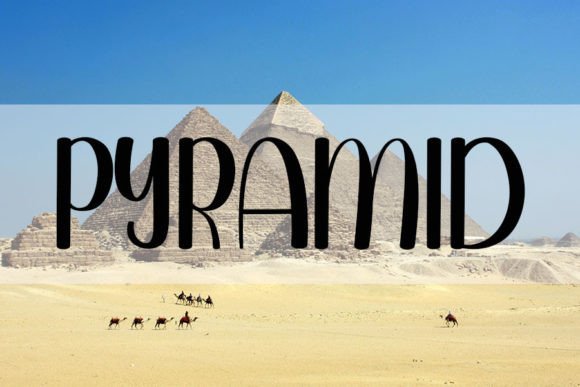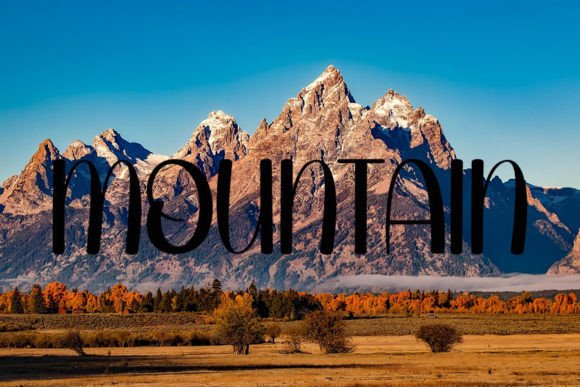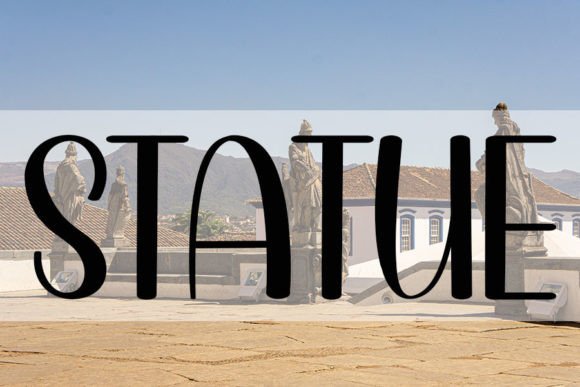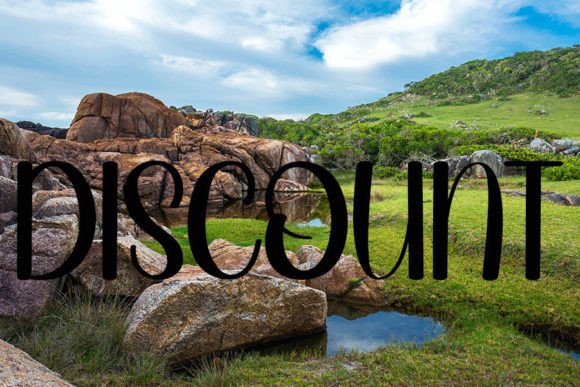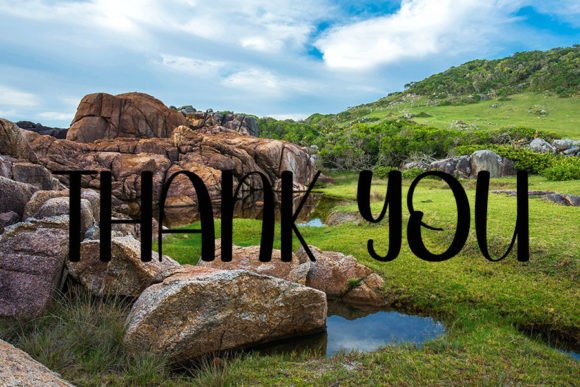
Discover the Timeless Elegance of Astone Font
Have you ever sat in front of your computer, staring at a blank canvas, waiting for inspiration to strike? For many designers, this is the moment when creativity takes over, and the possibilities seem endless. It’s in these moments that we need the perfect tool to bring our vision to life. That’s where Astone Font comes in – a beautiful, handwritten font that adds an elegant touch to any project.
Astone Font is more than just a font; it’s a statement piece that can elevate your designs to new heights. With its incredibly distinct and timeless style, it’s the perfect addition to any designer’s toolkit. Whether you’re working on a branding project, a website, or a social media campaign, Astone Font is sure to impress. Its versatility and sophistication make it a valuable asset for designers who want to create truly spectacular designs.
Astone Font Key Features
- Unique Characteristics: Astone Font features a distinctive, modern design with a blend of geometric and organic elements, making it suitable for a variety of design applications.
- Font Weight and Style: Astone Font is available in multiple weights, from Light to Bold, and includes italics and obliques for added versatility.
Astone Font Review
Astone Font is a typeface that caught my attention with its unique blend of modern and classic elements. ✨ The font’s clean lines and geometric shapes make it perfect for digital interfaces, while its subtle rounded edges add a touch of warmth and friendliness. ✨ The font’s high x-height also makes it highly legible, even at small sizes.
- High legibility due to high x-height
- Perfect for digital interfaces with its clean lines and geometric shapes
- Subtle rounded edges add a touch of warmth and friendliness
However, there are some limitations to consider. ⚠️ The font’s lack of bold weights may make it less suitable for headlines or titles, where a bold font is often required for emphasis. ⚠️ Additionally, the font’s limited language support may be a concern for designers working on multilingual projects.
- Lack of bold weights may make it less suitable for headlines or titles
- Limited language support may be a concern for designers working on multilingual projects
Overall, Astone Font is a solid choice for digital designers looking for a clean and modern typeface. While it may not be perfect for every project, its unique blend of style and functionality makes it a great option for those looking for a versatile font.
Astone Font Practical Application Guide
Tip: Use Astone Font in combination with a clear and concise layout to make your content easy to read and understand.
Astone Font is ideal for use in modern and sleek designs, such as:
- Website headers and footers
- Marketing materials and advertisements
What is the recommended font size and line height for the Astone Font?
For optimal readability, we recommend using the Astone Font at a minimum size of 12 points and a line height of at least 1.5 times the font size. This will ensure that the text is clear and easy to read, even at smaller sizes. Additionally, you can adjust the font size and line height to suit the specific needs of your design project.